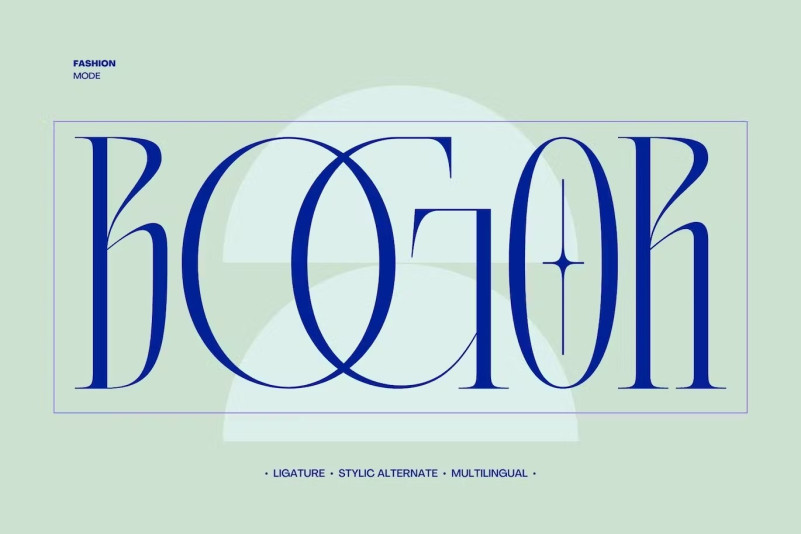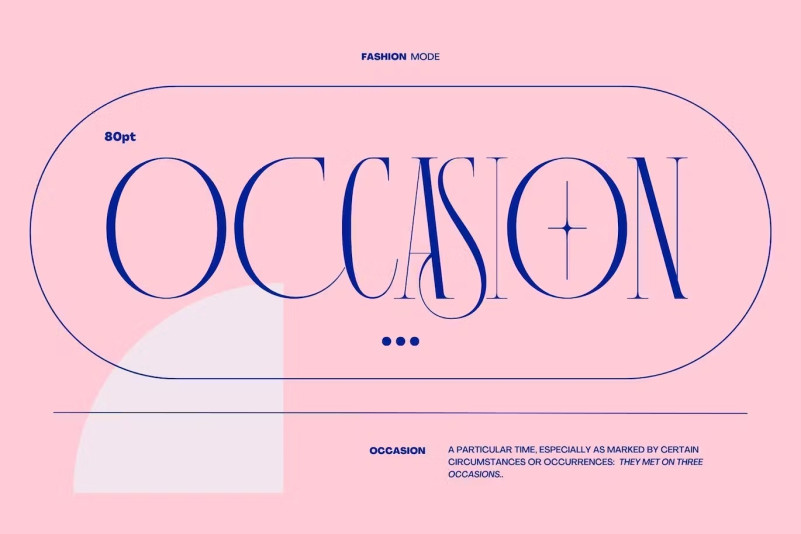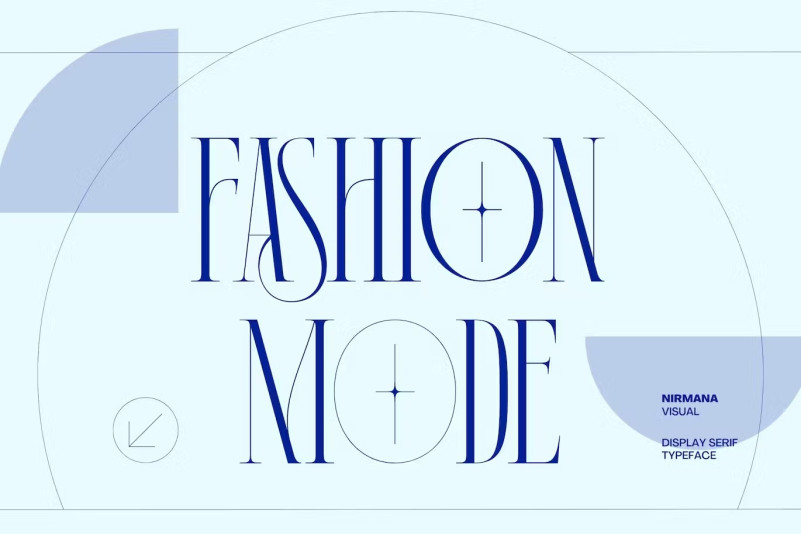
Fashion Mode Font
Fashion Mode Font , contemporary to the Seriferif font, Fashion Mode provides beautiful typographic harmony for a variety of design projects, including logos and branding, social media posts, advertisements, and product designs.